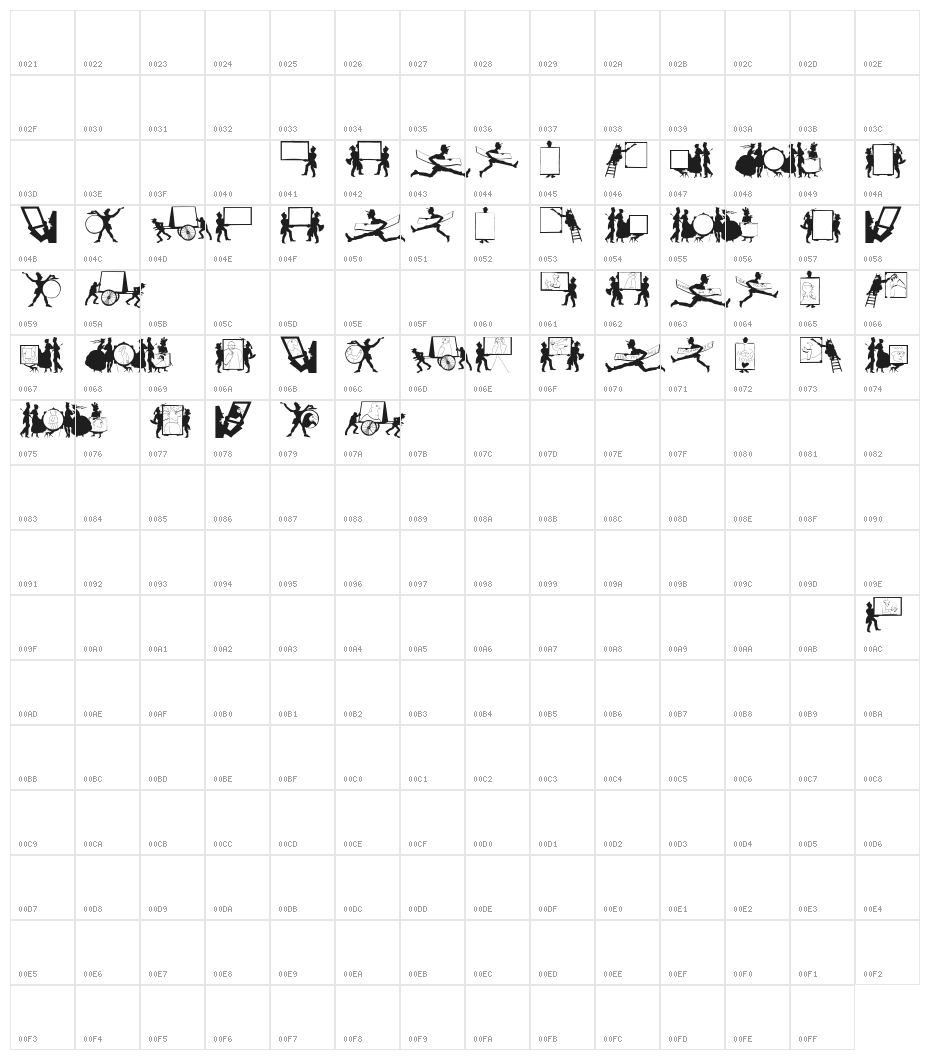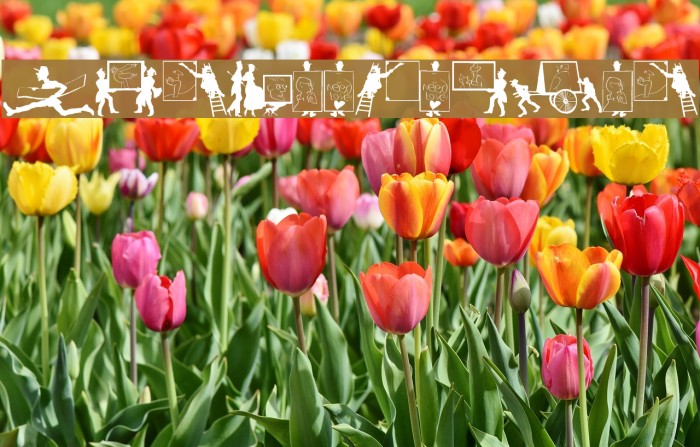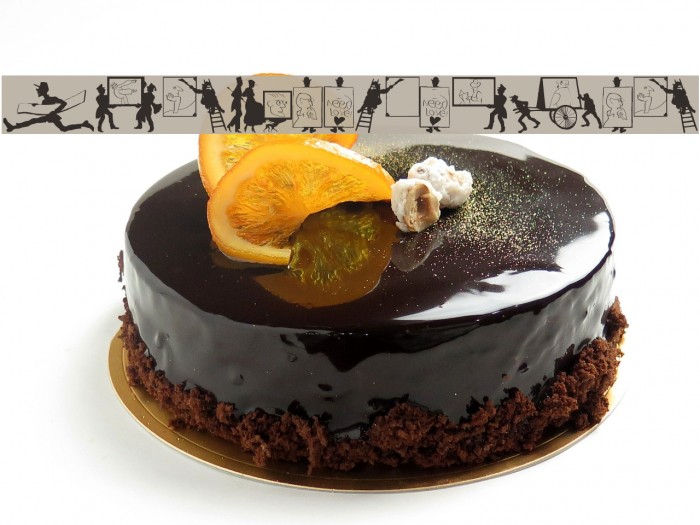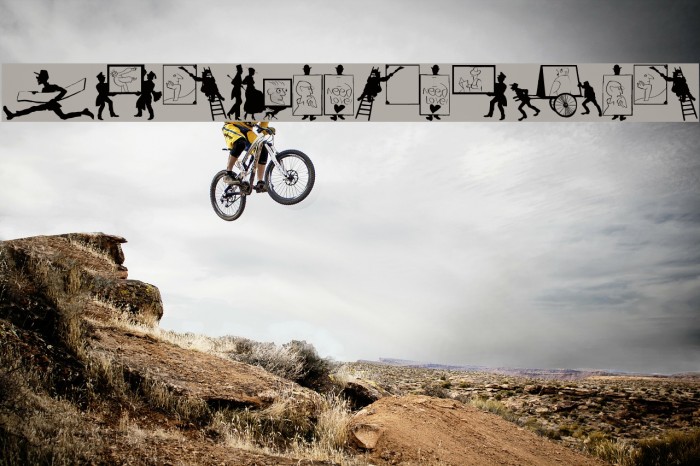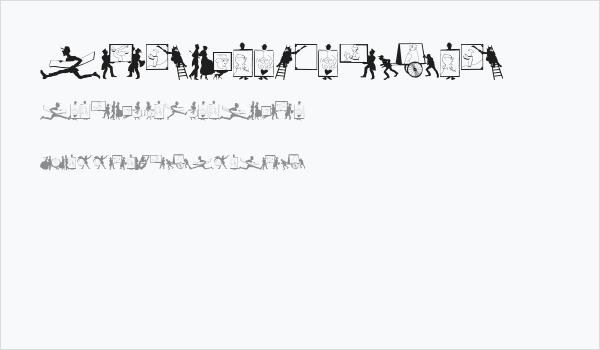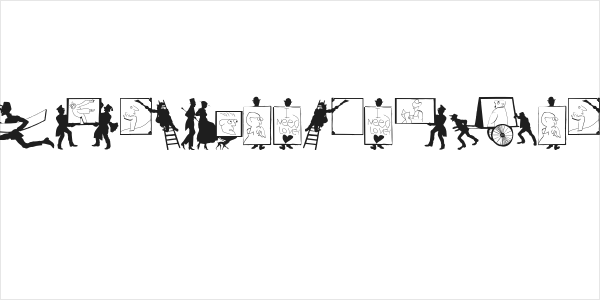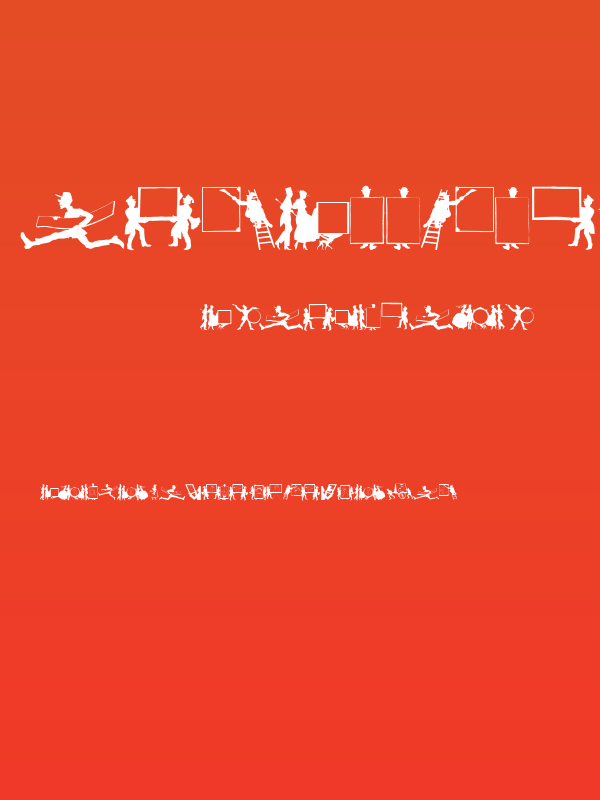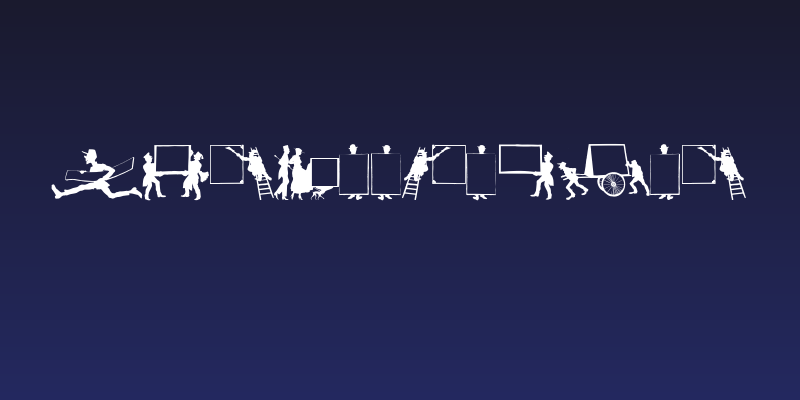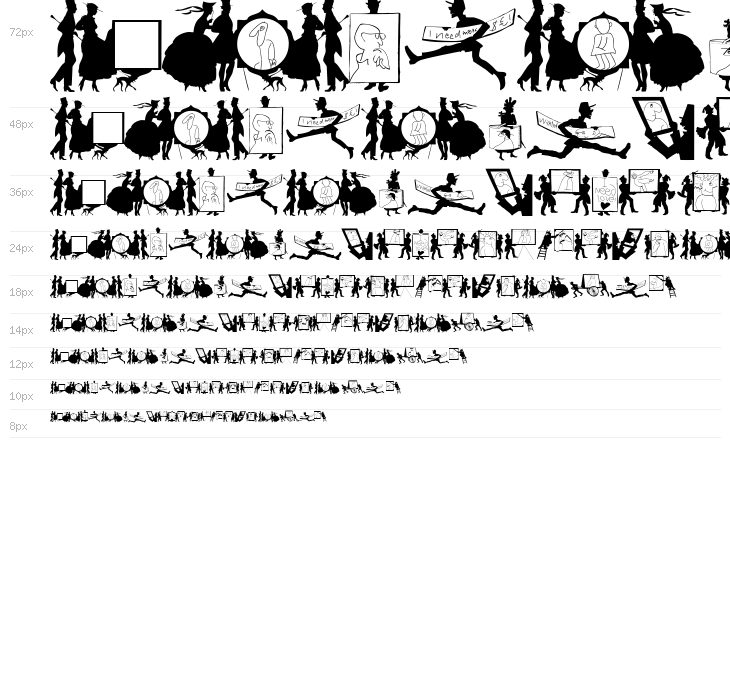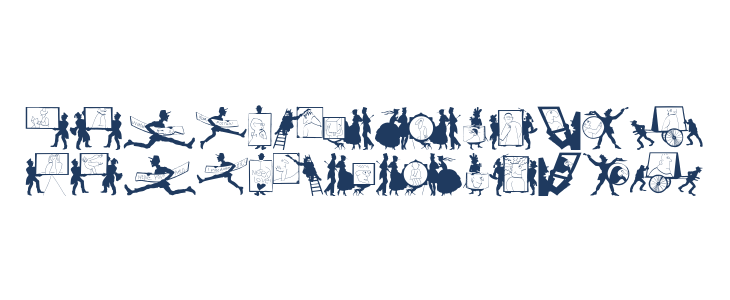
PosterFrames Font
PosterFrames Description
This is a decorative and playful font that features silhouettes of people interacting with frames and various objects. Each character is uniquely designed, incorporating elements of movement and action, giving the font a dynamic and lively appearance. The characters are not traditional letters but rather artistic representations that convey a sense of storytelling and creativity. The font is highly illustrative, making it suitable for projects that require a whimsical and engaging visual element. It is not suitable for body text due to its intricate design but can be effectively used for headlines or artistic compositions.
Use CaseHeadlines, Artistic compositions
Proposed ProjectsIdeal for creative projects like posters, art exhibitions, children's books, and event invitations where a playful and artistic touch is desired.